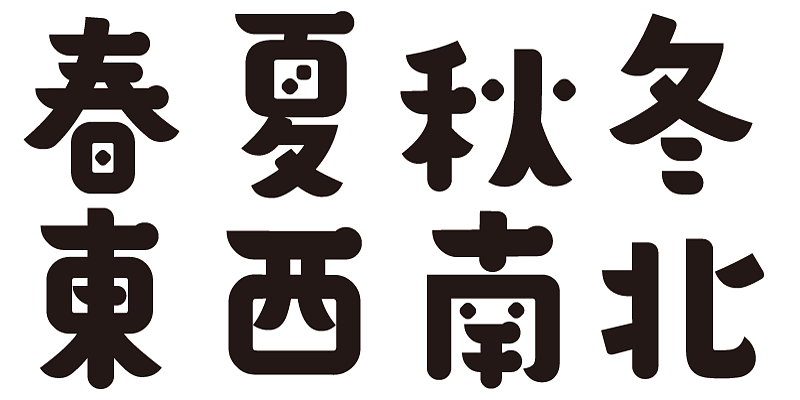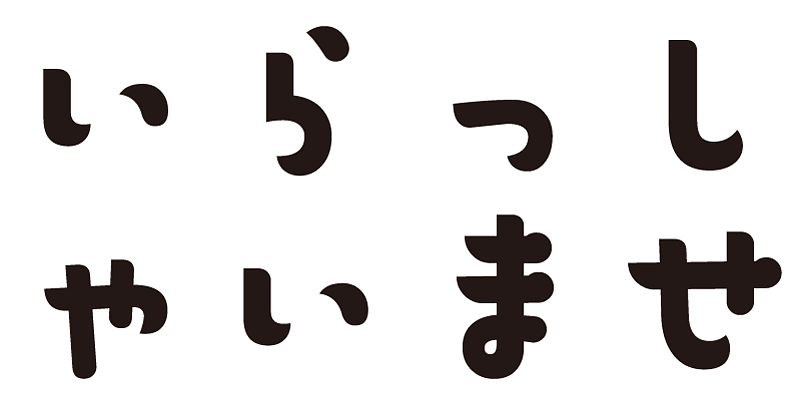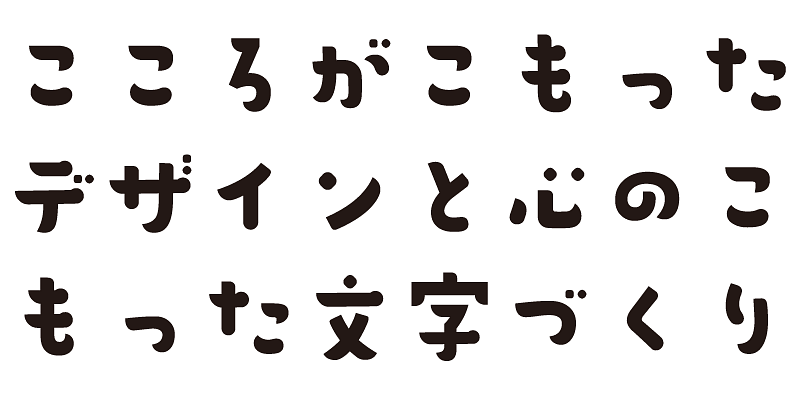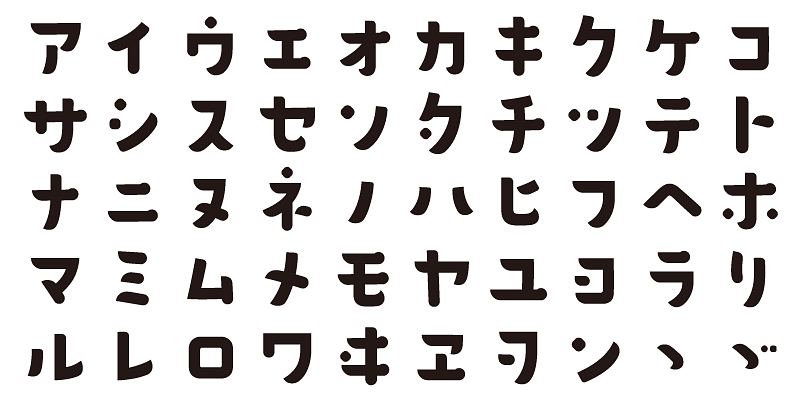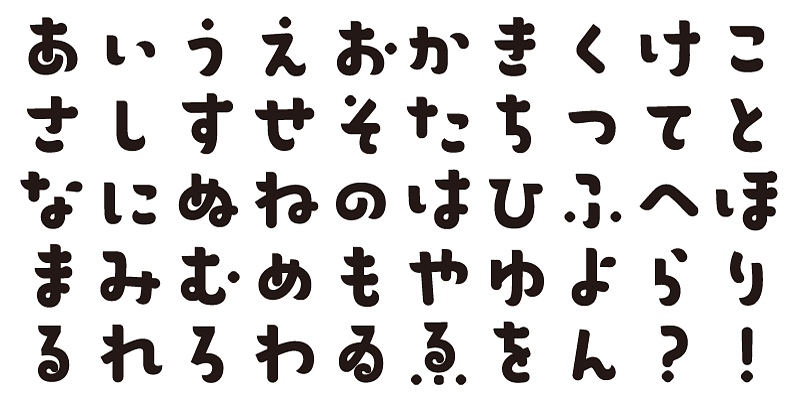
Like an analogue-age game—waiwai (cheerful and lively), gayagaya (bustling and energetic), hokkori (warm and cozy). This typeface carries the charm of handmade craftsmanship, embracing a sense of human touch.
This font includes top 1,000 kanji characters chosen from character frequency tables made by newspaper companies, publishing houses and linguistic research institutes, plus about 400 alphanumeric, kana characters and punctuation marks.